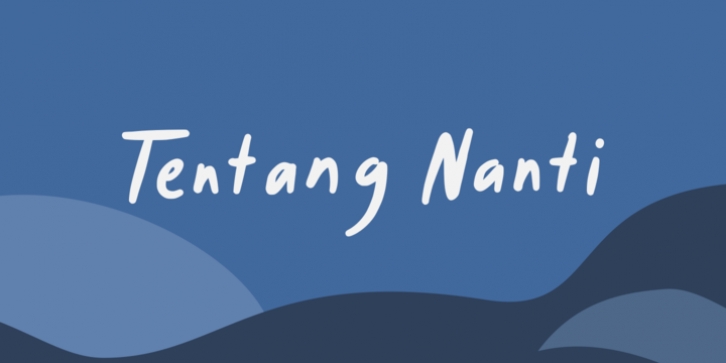
Tentang Nanti was designed by Gumilang Anggara Ruslan and published by Gartype Studio. Tentang Nanti contains 3 styles and family package options.
Inspired by a friendly family character we present to you Tentang Nanti. A handwritten font with a lot of alternates each Character who has suitable for book covers, texts, poems, tittles, advertising and more.
Tentang Nanti also includes two weights with Alternates: Alternate One and Alternate Two. This way you can easily customize your text with alternate glyphs from the other fonts.
· Tentang Nanti Regular
· Tentang Nanti Alternate One
· Tentang Nanti Alternate Two